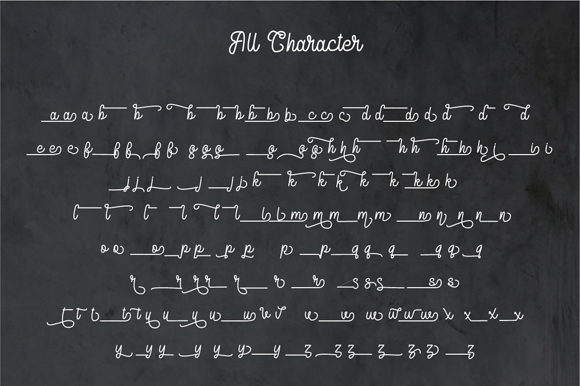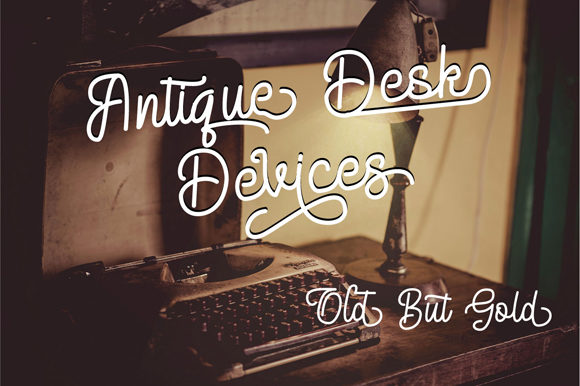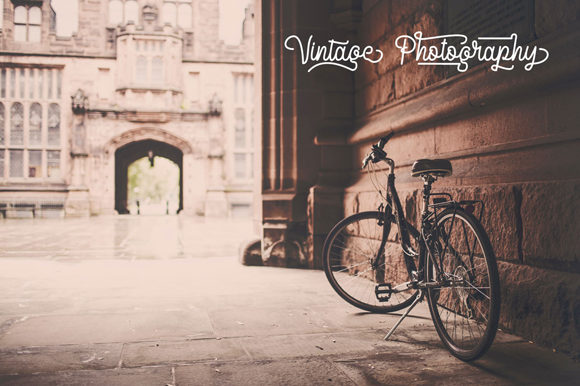
Introduction to Delponta Script Font
Have you ever stared at a blank page, searching for the perfect font to bring your creative project to life? I know I have. It’s that moment when everything else fades away, and all you’re left with is the thrill of possibility. For designers, finding the right font can make all the difference between a mediocre design and a stunning masterpiece. And that’s exactly where the Delponta Script Font comes in – a simple, yet elegant typeface that’s sure to elevate your next project.
With its perfectly shaped curves and great readability, the Delponta Script Font is a valuable design resource for any creative endeavor. Whether you’re designing posters, logos, or wedding invitations, this font is sure to add a touch of sophistication and style. Plus, with its high-quality design, you can trust that your project will look amazing, even with a transparent background.
Key Features of Delponta Script Font
- High-quality, elegant script font perfect for creative projects and design resources.
- Designed to be highly legible, making it an ideal choice for titles, headings, and body text in your creative project.
Honest Review: Delponta Script Font
I recently stumbled upon the Delponta Script Font and decided to give it a try. As a designer, I’m always on the lookout for high-quality design resources that can elevate my creative projects. In this review, I’ll share my honest thoughts on what works well and what might not.
- High-Quality Design: The font is well-designed, with a beautiful, handwritten feel that’s perfect for creative projects.
Overall, I’m impressed with the Delponta Script Font’s design and quality. While it has some limitations, it’s an excellent resource for designers who want to add a personal touch to their creative projects. I’d definitely recommend it to anyone looking for a high-quality, free script font.
Delponta Script Font is a high-quality design resource perfect for creative projects that require a touch of elegance and sophistication. With its beautiful, handwritten script, this font is ideal for designers looking for a unique and eye-catching element to add to their work.
Delponta Script Font is ideal for a variety of creative projects, including:
- Birthday and holiday cards.
Can I use the Delponta Script Font for digital projects, such as social media graphics and presentations?
Yes, the Delponta Script Font is perfect for digital projects, including social media graphics, presentations, and other online materials. Its high-quality design and versatility make it an excellent choice for a wide range of digital applications.